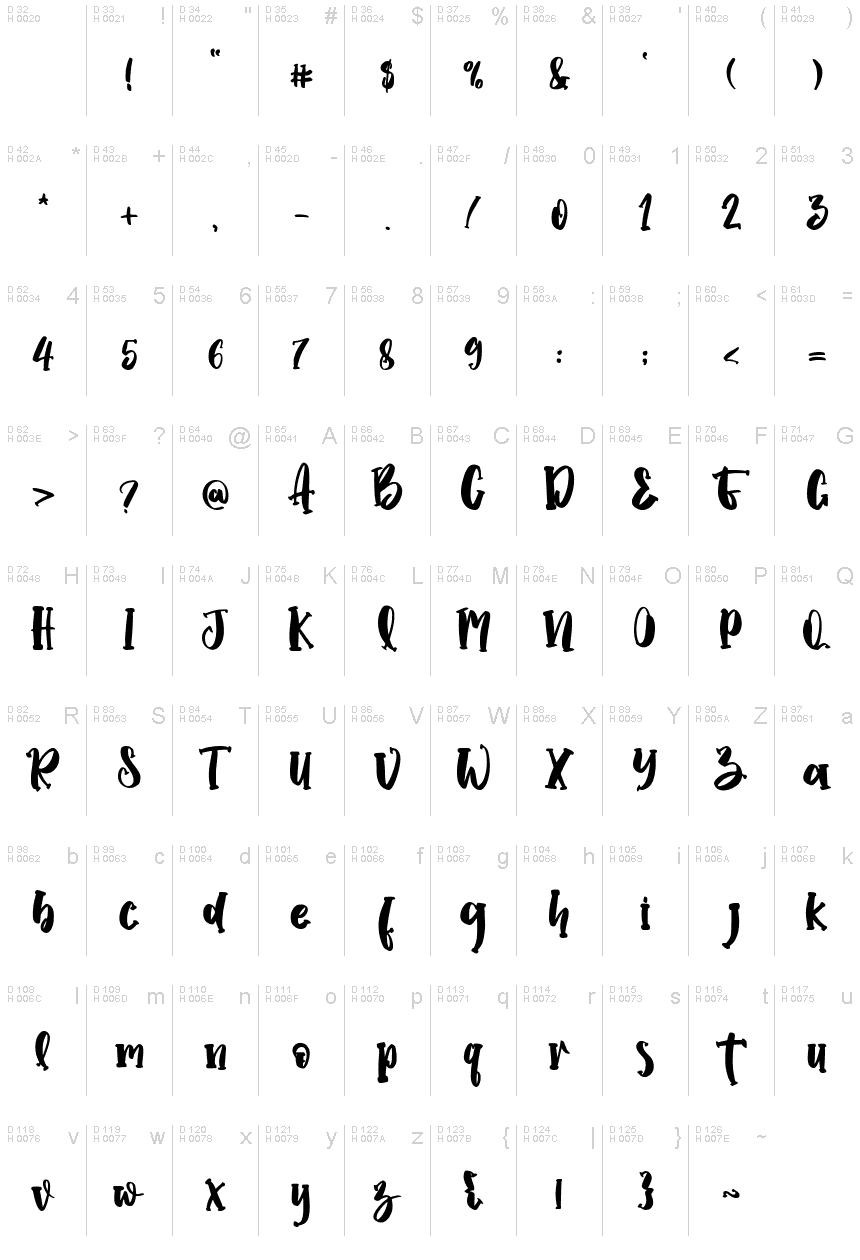
Hello Beach, designed by Letterara, is a semi-bold brush font that exudes playfulness and friendliness. Its smooth curves and cute aesthetic make it perfect for fashion branding and editorial designs. This handwritten font brings a unique charm to any project, making it suitable for various creative endeavors.
Whether you're working on a logo, website design, or social media graphics, Hello Beach adds a delightful touch that sets your work apart.
Embrace the versatility of this font and explore its potential in bringing your creative visions to life.